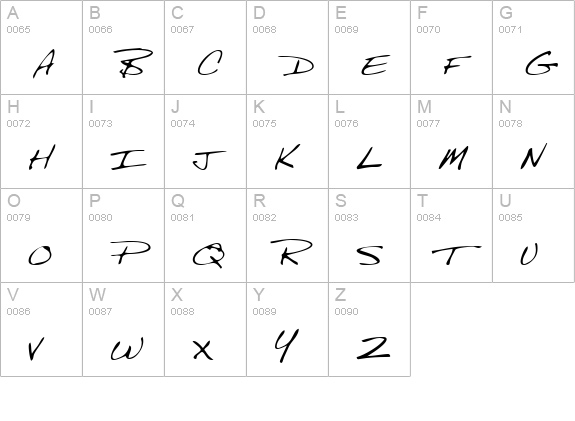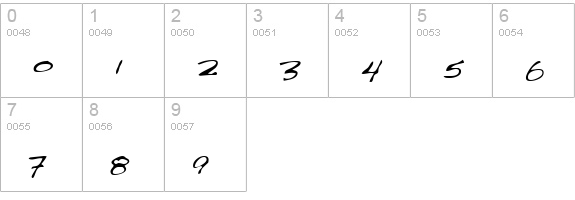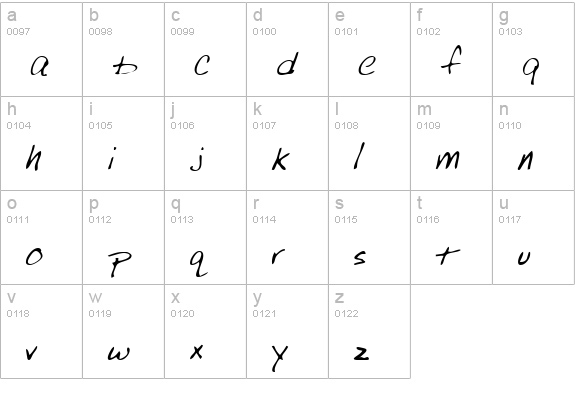
RubysHand Regular Font Details
RubysHand Regular is the standard, neutral variant in the RubysHand typeface family \xE2\x80\x94 well suited to general body text, paragraphs, and standard typographic work.
RubysHand Regular font is a charming and elegant typeface that exudes a sense of warmth and friendliness. Its smooth curves and flowing lines give it a playful yet sophisticated appearance, making it perfect for a variety of design projects. Whether you're creating invitations, branding materials, or social media graphics, RubysHand Regular will add a touch of whimsy and personality to your work. Best of all, RubysHand Regular font is available for free download at FontsMarket.com. This means you can easily add this delightful font to your collection without any cost, making it a valuable resource for all your creative endeavors. Don't miss out on the opportunity to enhance your designs with the beauty and versatility of RubysHand Regular font today!